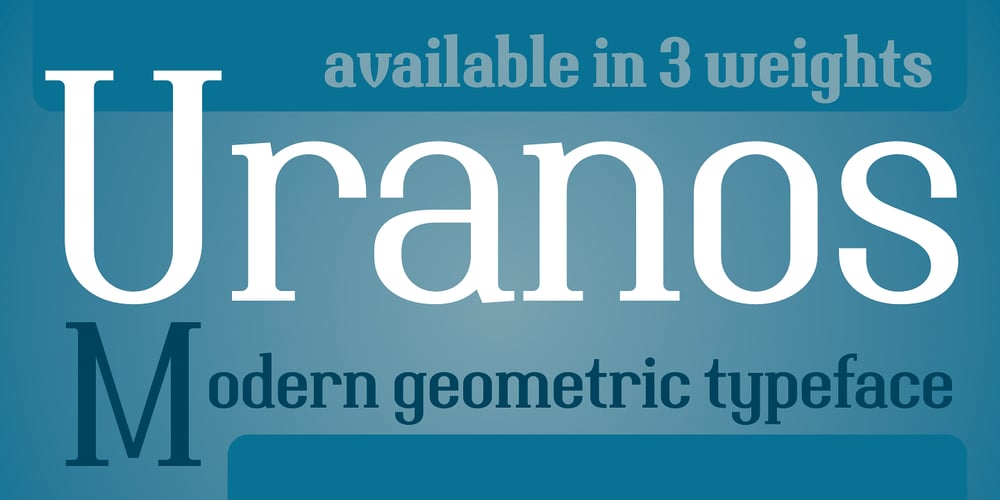
Uranos
Uranos font
Uranos Font Family was designed by Paweł Burgiel and published by Paweł Burgiel. Uranos contains 3 styles and family package options. Uranos is a serif type family with uncomplicated appearance and modern, geometric glyphs shapes. Available in three styles, include many stylistic alternates and automatic ligature creation. Character set contain the complete Unicode Latin 1252 (Western European; ANSI), 1250 Latin 2 (Central European), 1254 Turkish, 1257 Baltic. Supported OpenType features: Acces All Alternates, Capital Spacing, Case-Sensitive Forms, Contextual Alternates, Fractions, Kerning, Localized Forms, Ordinals, Proportional Figures, Slashed Zero, Small Capitals, Small Capitals From Capitals, Stylistic Alternates, Stylistic Set (1-20), Superscript, Tabular Figures, Titling. Kerning is prepared as single (‘flat’) table for maximum possible compatibility with older software.